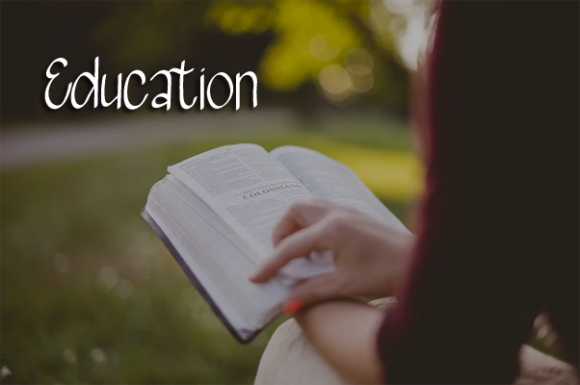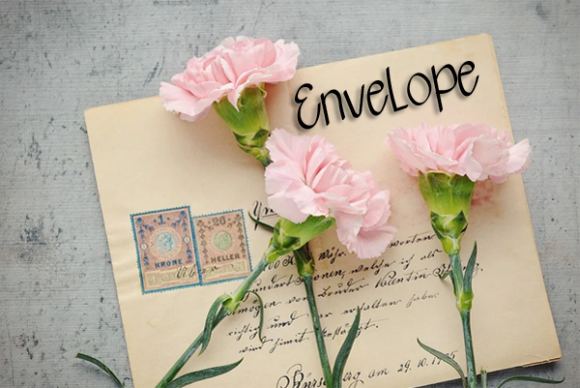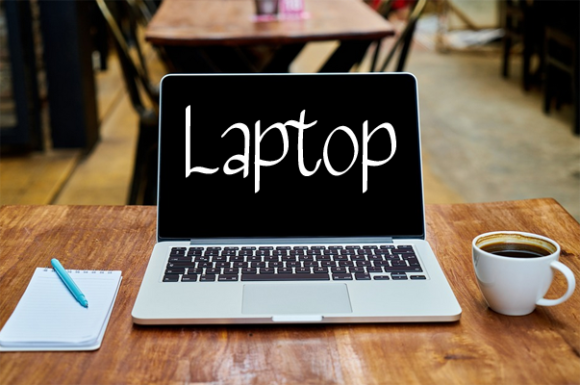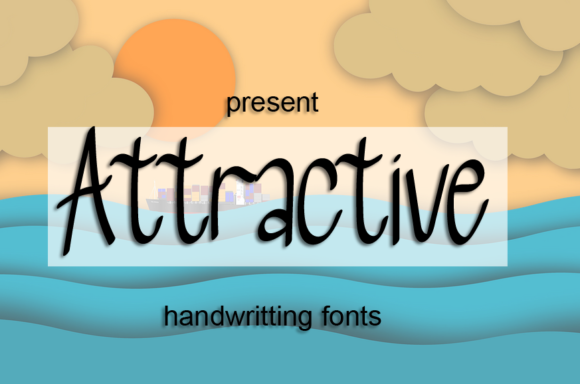
Introduction to Attractive Font
Attractive is a whimsical script font with a relaxed theme, featuring a lovely style.
Attractive is a whimsical script font with a relaxed theme, featuring a lovely style. No matter the topic, this font will be an incredible asset to your fonts’ library, as it has the potential to elev
Key Features of Attractive Font